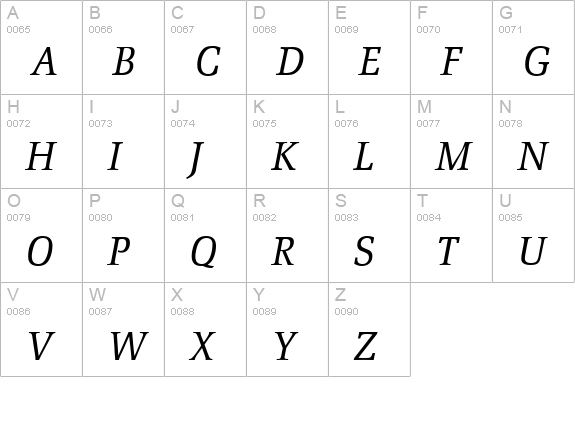
D790-Roman-Italic Font Details
D790-Roman-Italic is a distinctive, italic variant in the D790 typeface family \xE2\x80\x94 well suited to design and typography projects.
Introducing D790 Roman Italic font, a versatile and elegant typeface that exudes sophistication and classic appeal. With its sleek lines and graceful curves, this font is perfect for adding a touch of timeless style to your design projects. Whether you're creating invitations, branding materials, or editorial layouts, D790 Roman Italic font will make your text stand out with its refined aesthetic. The best part? D790 Roman Italic font is available for free download at FontsMarket.com. This means you can enhance your designs with this stunning font without breaking the bank. Don't miss out on the opportunity to elevate your projects with the beauty and charm of D790 Roman Italic font. Download it today and let your creativity shine!